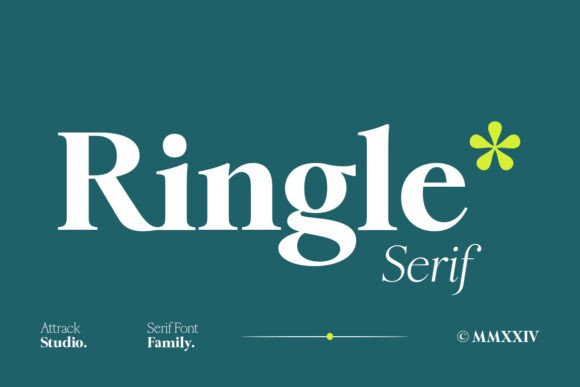
Ringle Font: A Timeless Elegance for Luxury Branding
In the world of typography, a font can make or break a brand’s identity. For luxury brands, in particular, the right font can evoke a sense of sophistication, elegance, and refinement. This is where Ringle Font comes in – a classic and elegant retro serif typeface with a modern twist. With its stunning contrast and sharp italics, Ringle is an excellent choice for any luxury or typeface-focused branding project.
Key Features of Ringle Font
- 18-letter weights: Ringle comes in a wide range of weights, making it a highly versatile font for various design applications.
- Classic and elegant design: Ringle’s retro serif design exudes a sense of timeless elegance, perfect for luxury brands.
- Stunning contrast: The font’s contrast is carefully crafted to create a sense of visual hierarchy, making it ideal for headlines and titles.
- Sharp italics: Ringle’s italics are designed to be sharp and elegant, adding a touch of sophistication to any design.
Use Cases for Ringle Font
Ringle’s versatility makes it an excellent choice for a wide range of design applications. Here are some use cases where Ringle excels:
- Magazine and editorial design: Ringle’s classic design and stunning contrast make it perfect for bold magazine images and editorial content.
- Wedding invitations: The font’s elegant and refined design makes it an excellent choice for wedding invitations and other formal events.
- Branding and logos: Ringle’s versatility and range of weights make it an excellent choice for branding and logo design.
- Poster designs: The font’s sharp italics and stunning contrast make it perfect for creating eye-catching poster designs.
Typography Tips for Using Ringle Font
To get the most out of Ringle, here are some typography tips to keep in mind:
- Use contrasting weights: Experiment with different weights to create a visual hierarchy and add depth to your design.
- Pay attention to spacing: Make sure to adjust the spacing between letters and lines to create a clean and elegant design.
- Experiment with italics: Ringle’s sharp italics can add a touch of sophistication to your design – don’t be afraid to experiment with them.
Design Inspiration with Ringle Font
Ringle’s classic and elegant design makes it an excellent choice for creating sophisticated and refined designs. Here are some design inspiration ideas to get you started:
- Create a luxury brand identity: Use Ringle to create a luxury brand identity that exudes elegance and refinement.
- Design a wedding invitation: Use Ringle to create a beautiful and elegant wedding invitation that sets the tone for the big day.
- Develop a magazine layout: Use Ringle to create a bold and eye-catching magazine layout that showcases your content.
Technical Details of Ringle Font
Here are some technical details about Ringle Font:
- Font family: Ringle
- Number of weights: 18
- Style: Retro serif
Ringle Font is a timeless and elegant retro serif typeface with a modern twist. With its stunning contrast and sharp italics, Ringle is an excellent choice for luxury brands and designers looking to create sophisticated and refined designs. Whether you’re working on a magazine layout, wedding invitation, or branding project, Ringle is a versatile font that can help you achieve your design goals.